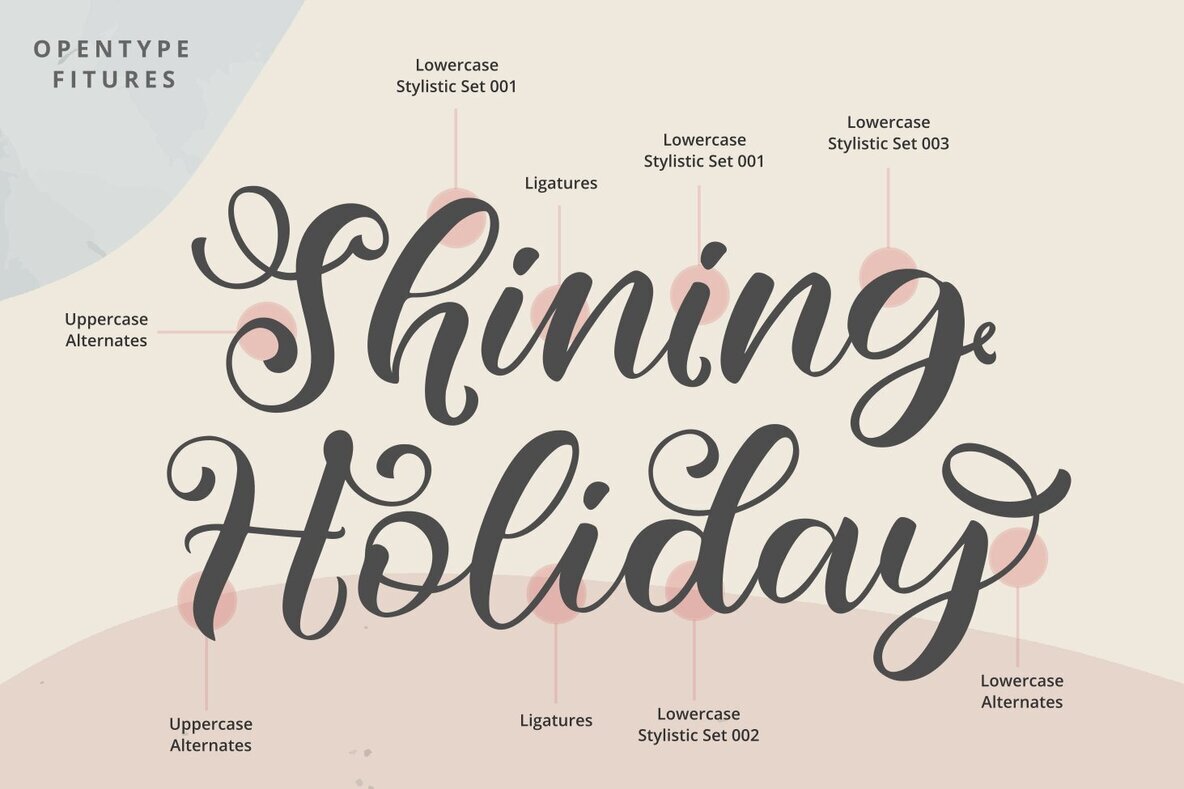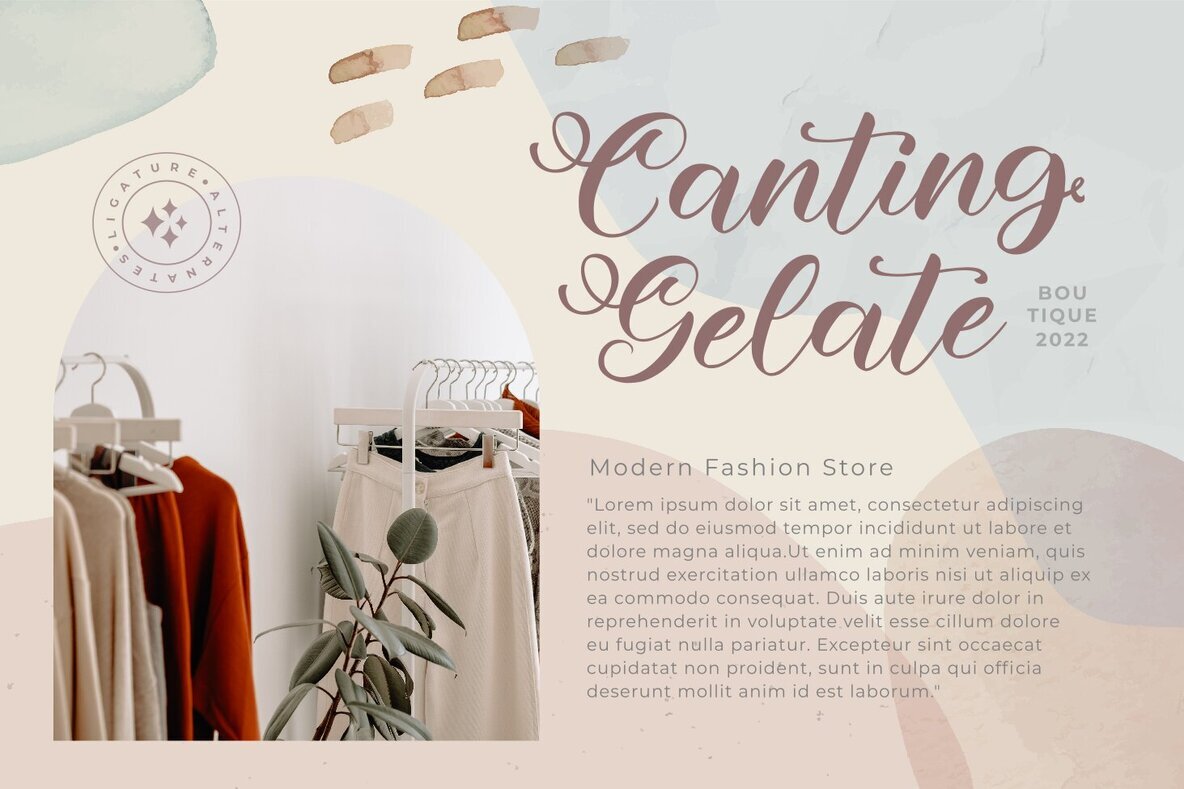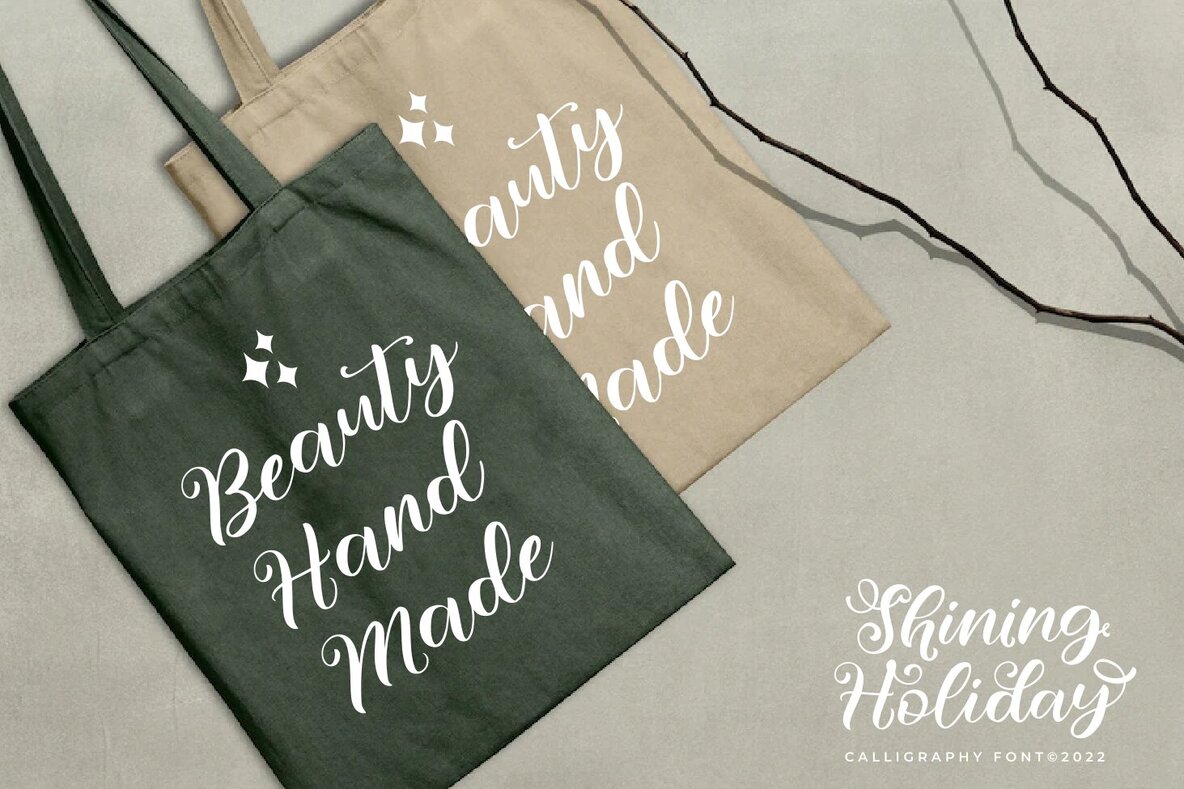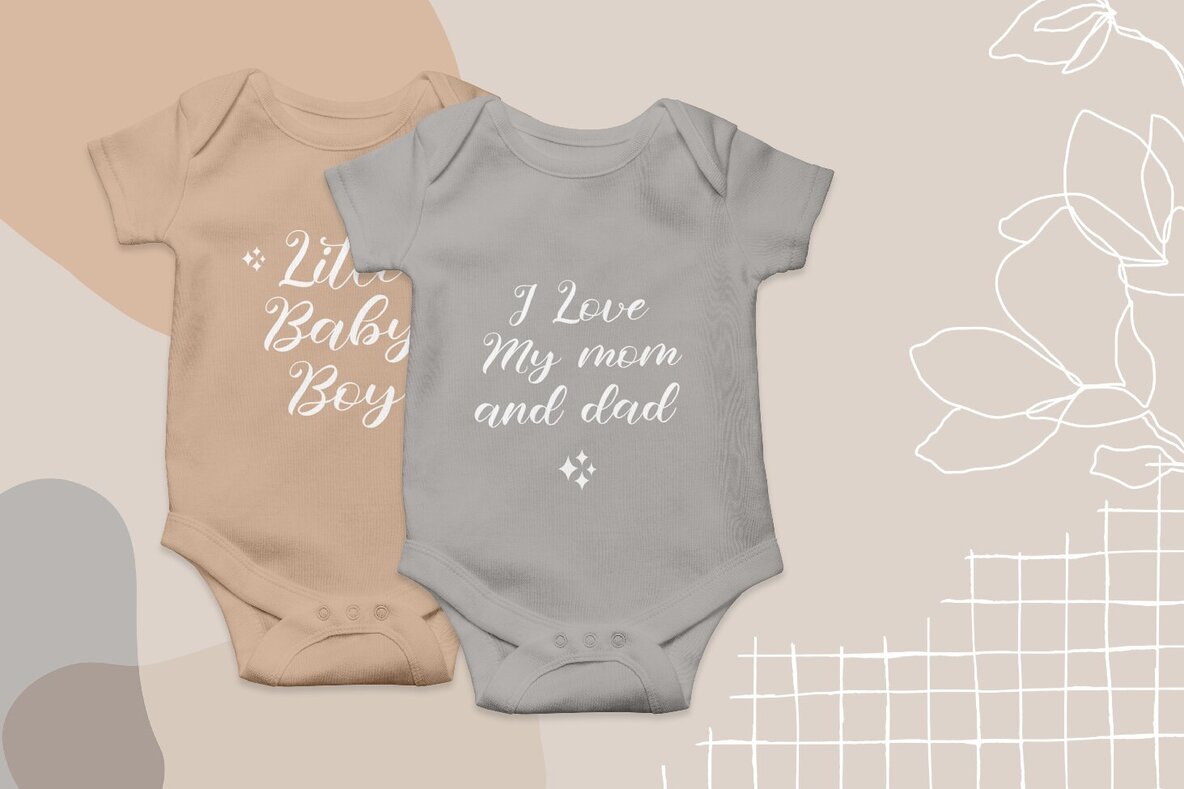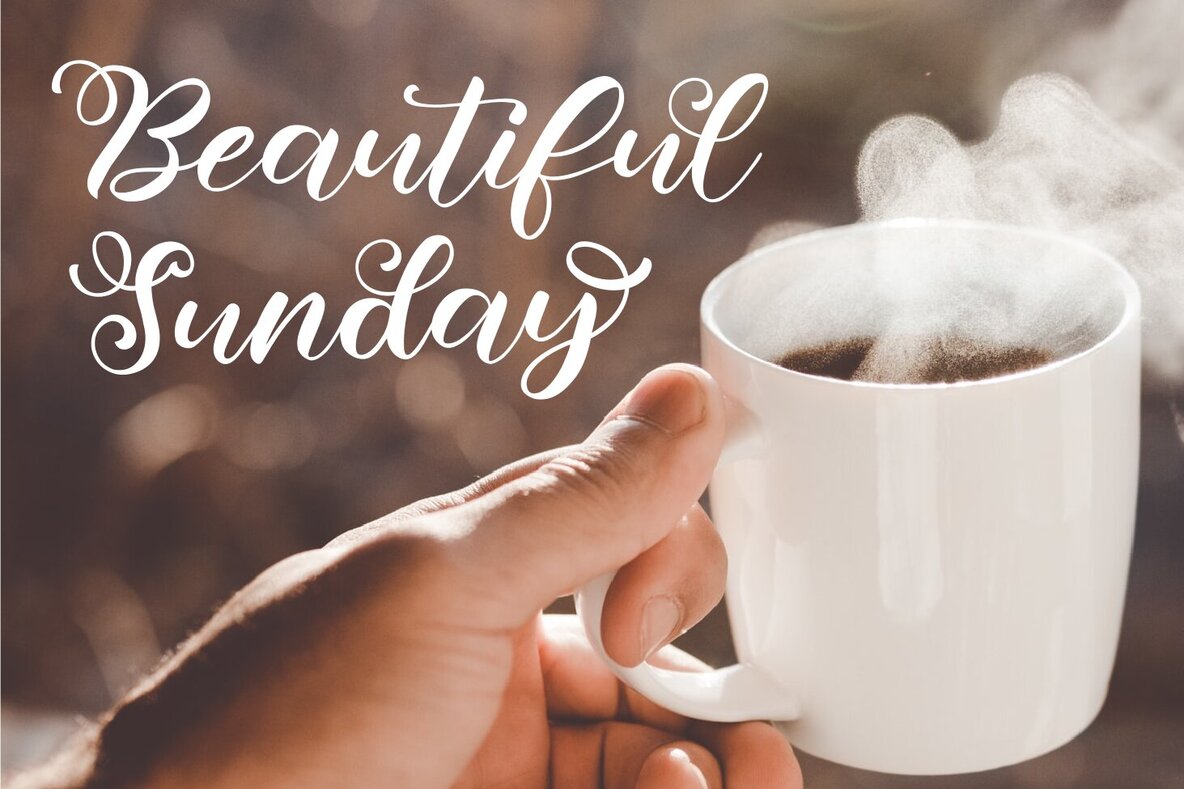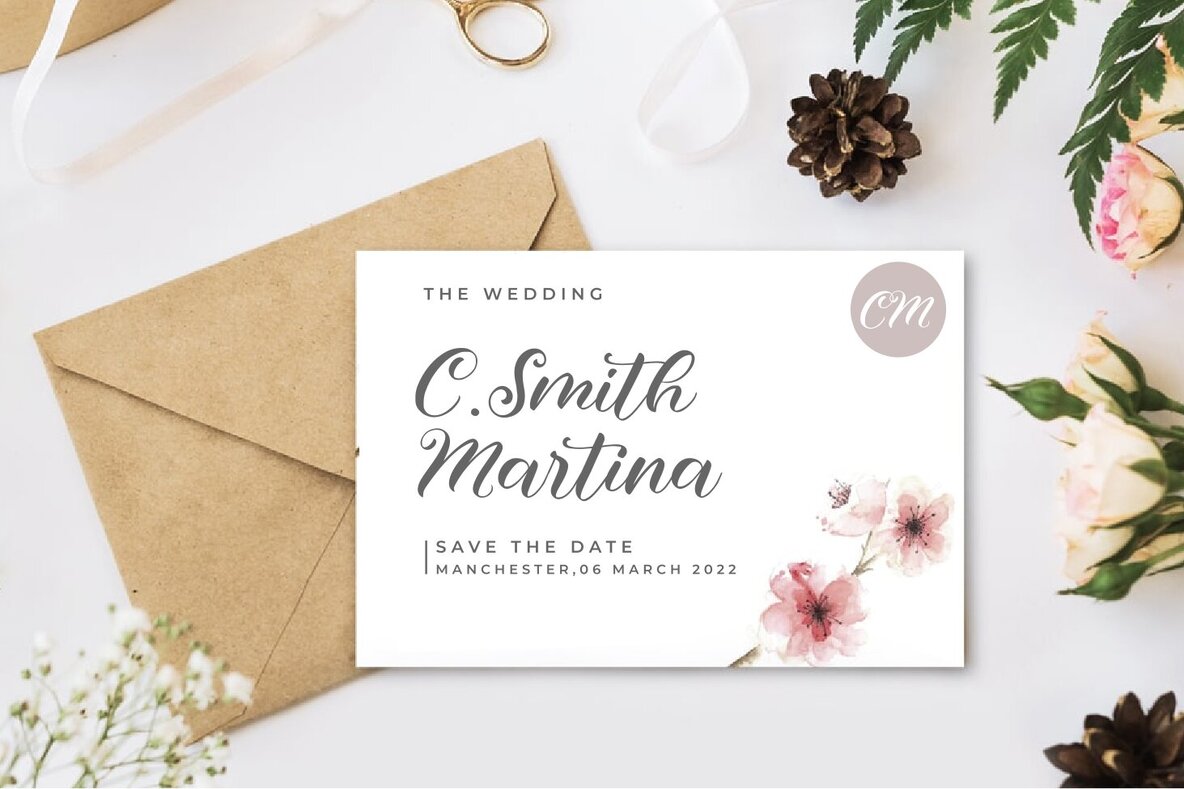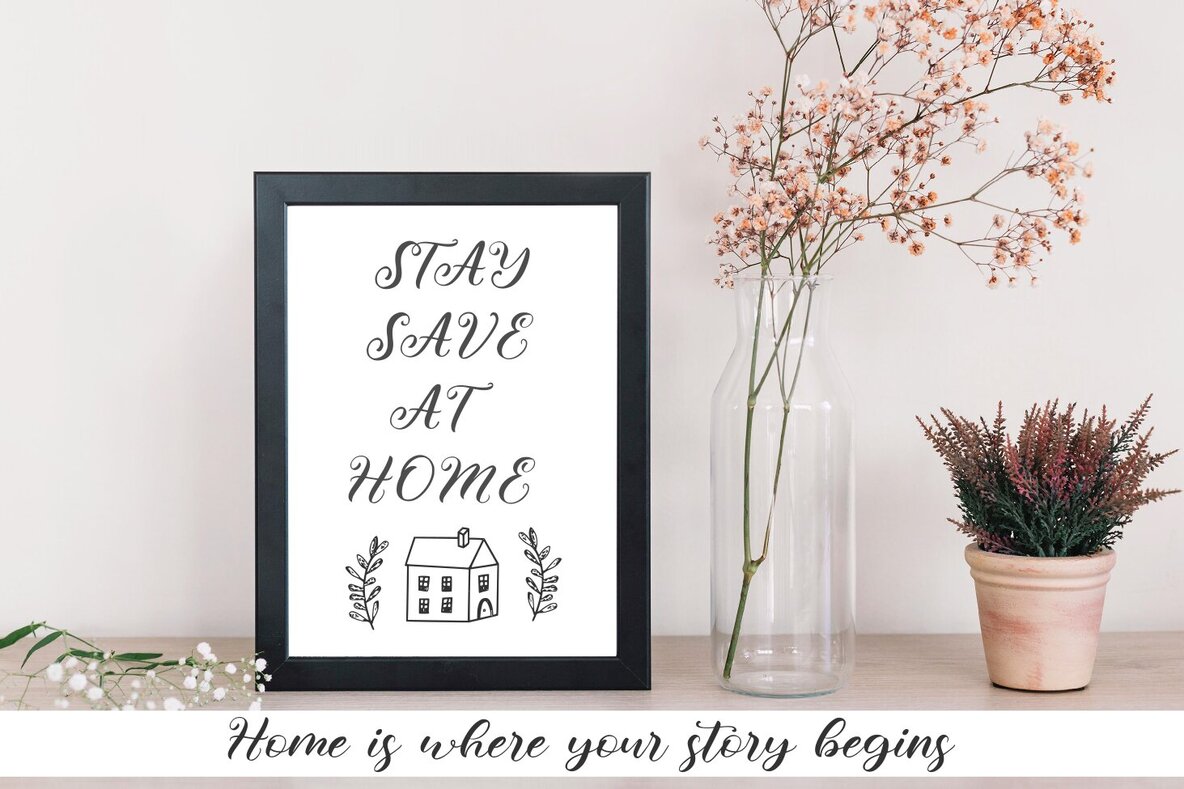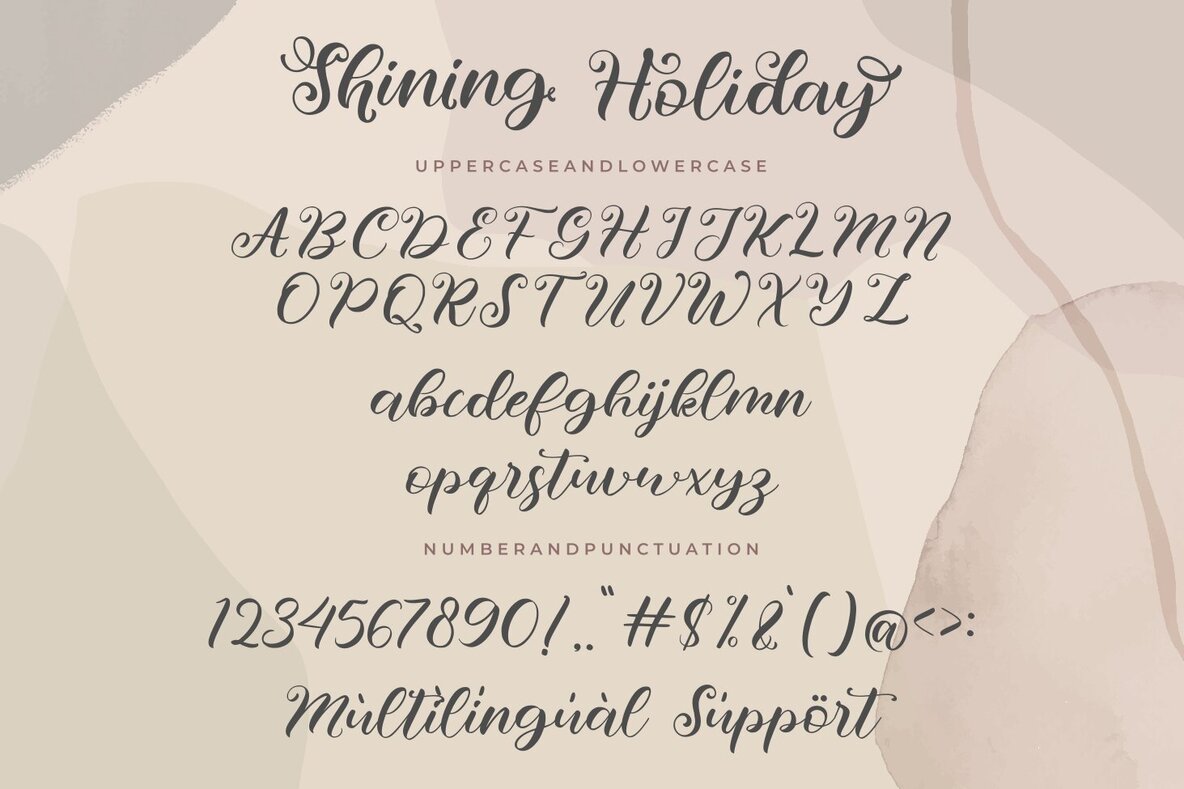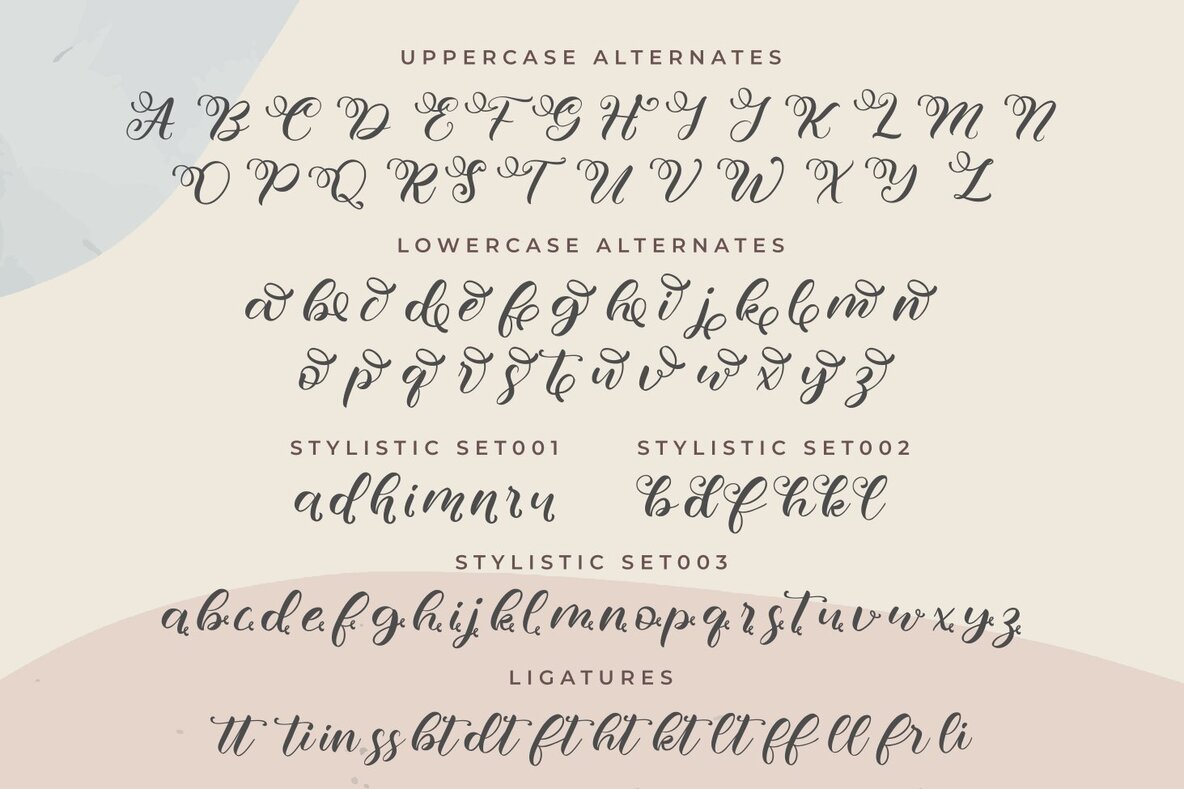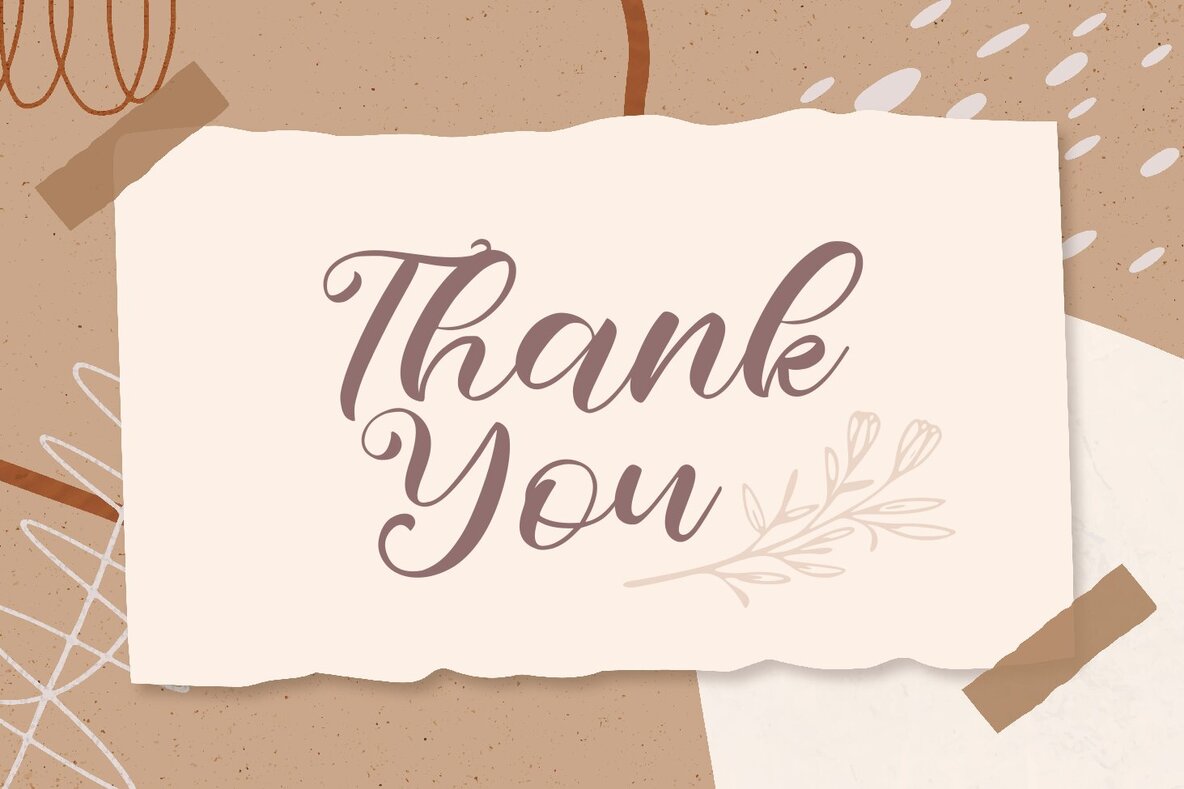
Shining Holiday Font
Shining Holiday
Shining Holiday by Zeenesia Studio is a captivating calligraphic script font designed to add a touch of elegance to any project. Perfectly suited for wedding invitations, thank you cards, quotes, greeting cards, logos, and business cards, this font brings a handwritten charm to your designs.Shining Holiday: Elegant Calligraphic Script Font